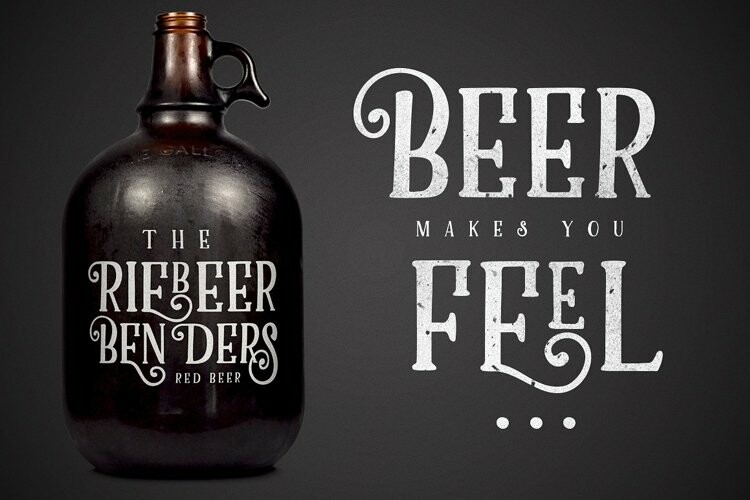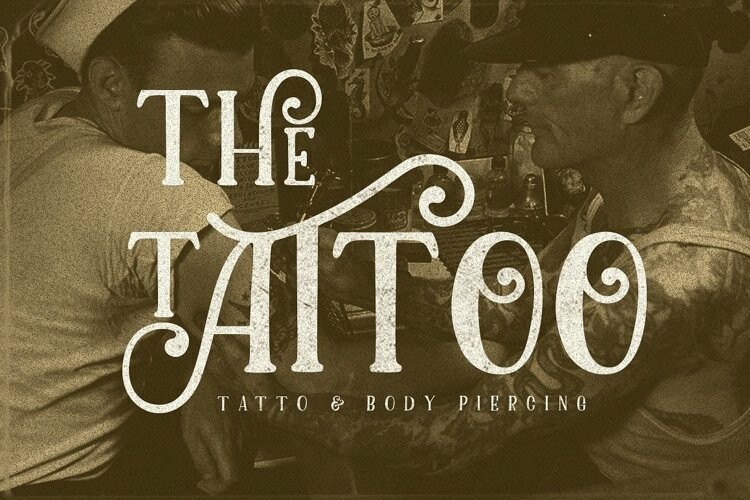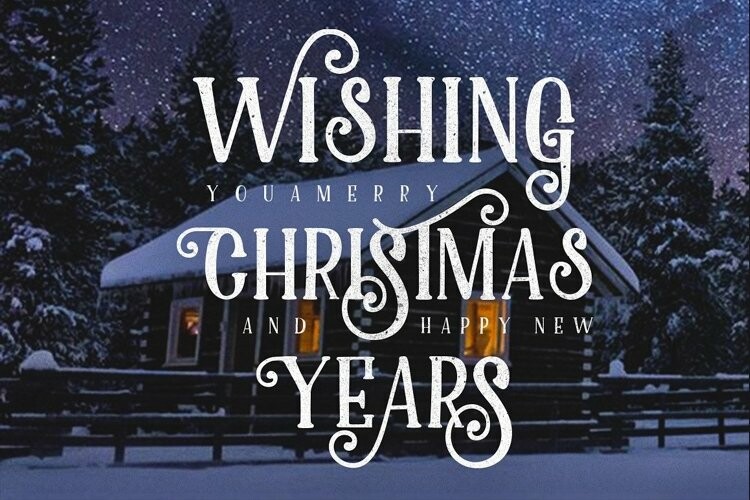
Asmara Font
Asmara FontAsmara type is a decorative-serif font embodying vintage and elegant curves with functional structure. and the curved lines. Crafted with love and easy-to-read letter designThe typeface offers numerous combination possibilities between the basic glyph set and stylistic sets.The stylistic sets are alternate alphabets that you can access by using OpenType savvy programs such as Adobe, Do not use any third party software that not support the OTF (Open Type Format) featureAsmara Type is an experimental and versatile font. Suitable for digital lettering, prints, logo, poster, t-shirt, packaging and applicable for some type of graphic design.